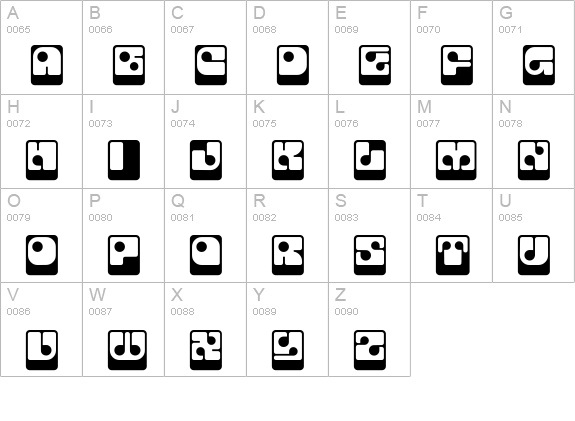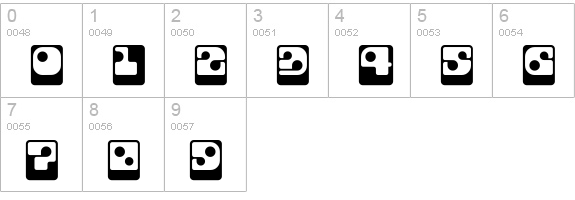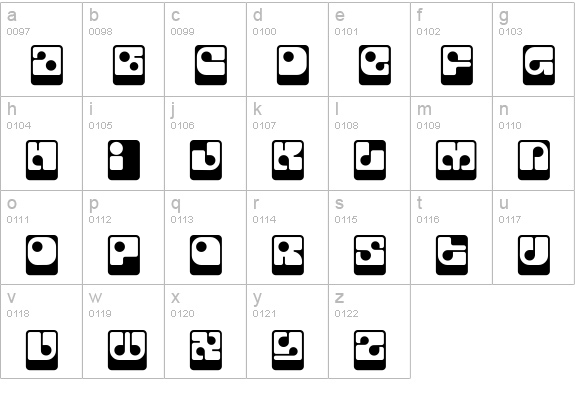
SkylabCapsule Font Details
Introducing SkylabCapsule Font, a sleek and modern typeface that exudes contemporary elegance and sophistication. With its clean lines and bold, geometric shapes, SkylabCapsule Font is perfect for creating eye-catching designs that demand attention. This versatile font is ideal for a wide range of projects, from branding and advertising to packaging and web design. Its unique style sets it apart from traditional typefaces, making it a standout choice for anyone looking to make a statement with their typography. Best of all, SkylabCapsule Font is completely free to download at FontsMarket.com. So whether you're a designer, developer, or creative enthusiast, you can easily access this stunning font and take your designs to the next level. Don't miss out on the opportunity to add SkylabCapsule Font to your collection today!